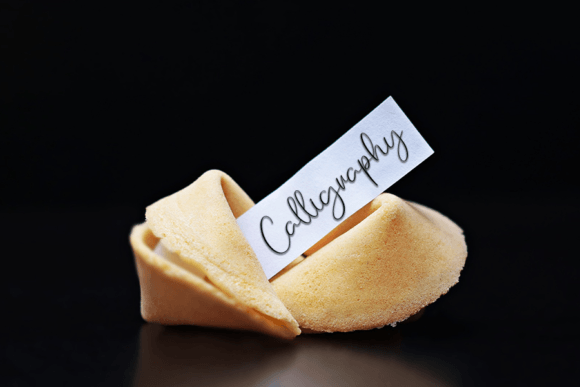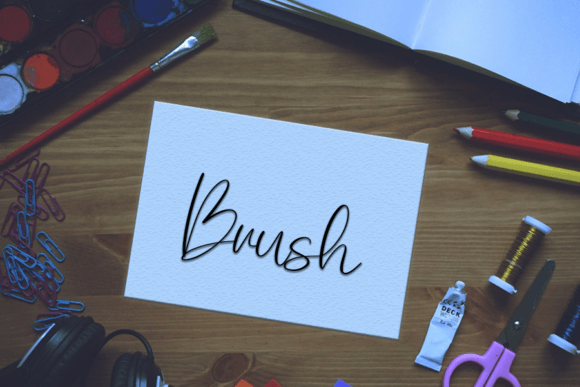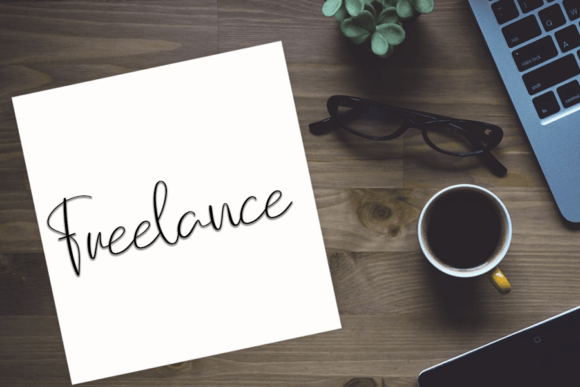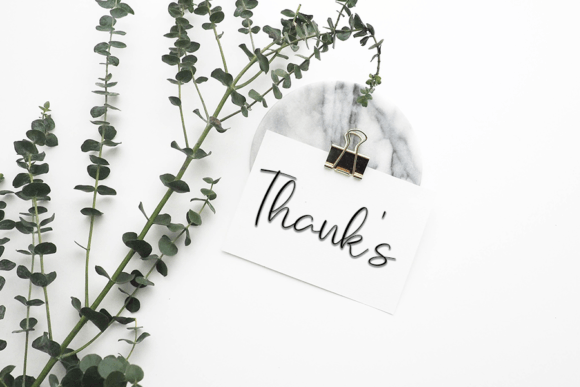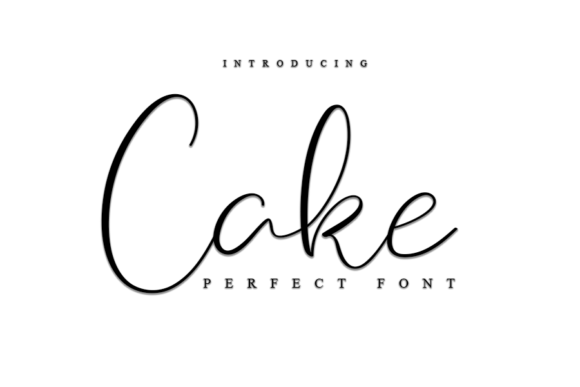
Cake Font: The Sweetest Addition to Your Design Collection
Are you a designer or crafter looking for a unique and eye-catching font to elevate your creative projects? Look no further than Cake Font, a delicate handwritten font that’s sure to satisfy your design cravings. In this article, we’ll dive into the world of Cake Font, exploring its features, uses, and benefits, as well as provide tips and inspiration for incorporating it into your work.
What is Cake Font?
Cake Font is a carefully crafted handwritten font designed to bring a touch of whimsy and charm to your designs. With its delicate lines and elegant curves, this font is perfect for creating cool and unique designs that stand out from the crowd. Whether you’re working on a letter, invitation, food product label, or title, Cake Font is the perfect choice.
Features of Cake Font
So, what makes Cake Font so special? Here are just a few of its standout features:
- Handwritten charm: Cake Font has a distinctly handwritten feel, giving your designs a personal and human touch.
- Delicate lines: The font’s delicate lines and curves create a sense of elegance and sophistication.
- Unique character set: Cake Font includes a range of unique characters and glyphs, allowing you to add extra flair to your designs.
- Versatile: This font can be used for a wide range of projects, from formal invitations to playful food labels.
Uses for Cake Font
So, what can you use Cake Font for? The possibilities are endless! Here are a few ideas to get you started:
- Invitations: Use Cake Font to create beautiful, one-of-a-kind invitations for weddings, parties, and other special occasions.
- Food labels: Add a touch of whimsy to your food labels with Cake Font, perfect for bakeries, restaurants, and food trucks.
- Title design: Use Cake Font to create eye-catching titles for books, magazines, and other publications.
- Lettering: Create beautiful, handwritten letters with Cake Font, perfect for personal correspondence or marketing materials.
Tips for Using Cake Font
Here are a few tips for getting the most out of Cake Font:
- Experiment with sizes: Cake Font looks great in a range of sizes, from small and delicate to large and bold.
- Play with colors: Try pairing Cake Font with a range of colors to add extra visual interest to your designs.
- Add embellishments: Use Cake Font’s unique character set to add embellishments and flourishes to your designs.
- Mix and match: Combine Cake Font with other fonts and design elements to create a unique and eye-catching look.
Inspiration and Examples
Still not sure how to use Cake Font? Here are a few examples of how this beautiful font can be used in different contexts:
- Wedding invitations: Use Cake Font to create beautiful, elegant wedding invitations that set the tone for a special day.
- Food packaging: Add a touch of whimsy to your food packaging with Cake Font, perfect for bakeries, candy shops, and other food retailers.
- Magazine titles: Use Cake Font to create eye-catching titles for magazines, newspapers, and other publications.
Cake Font is a unique and versatile font that’s perfect for designers and crafters looking to add a touch of whimsy and charm to their creative projects. With its delicate lines, elegant curves, and range of uses, this font is sure to become a favorite in your design collection. So why wait? Download Cake Font today and start creating your own sweet designs!